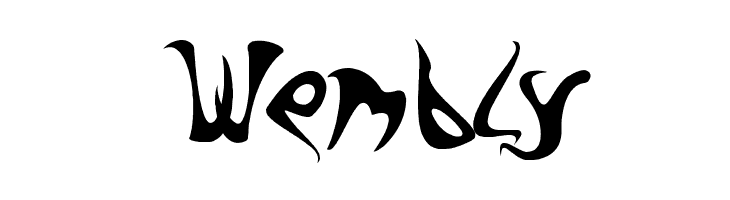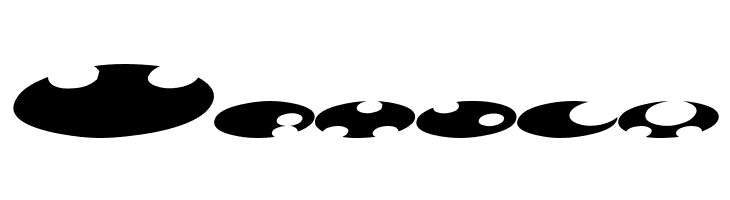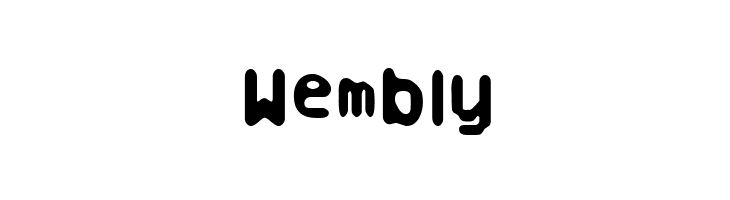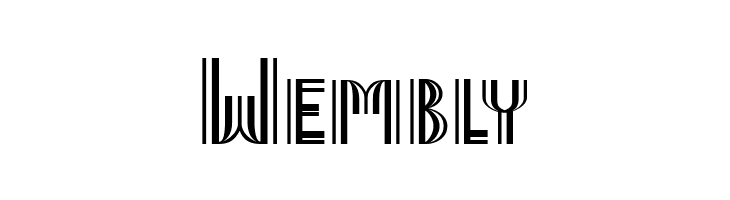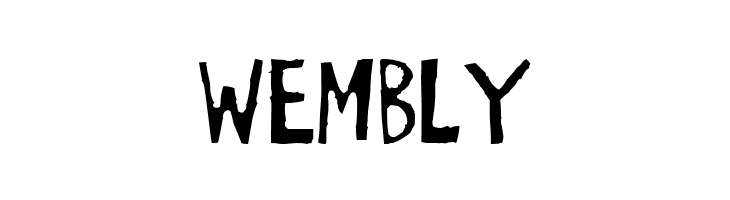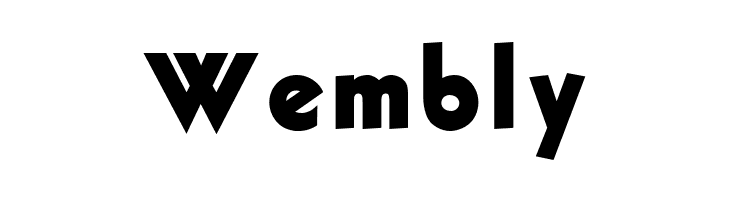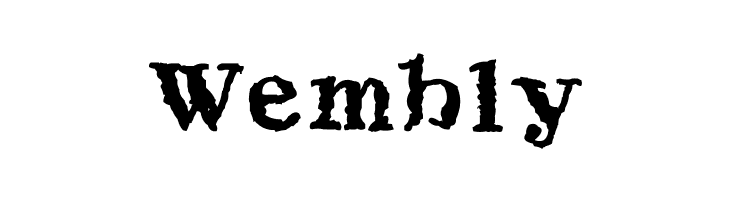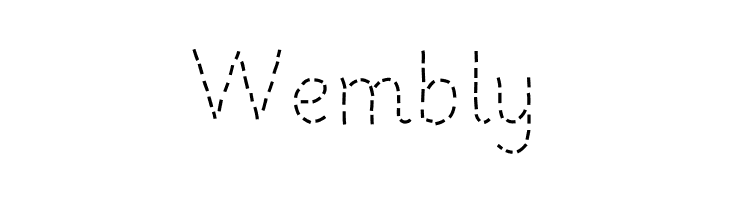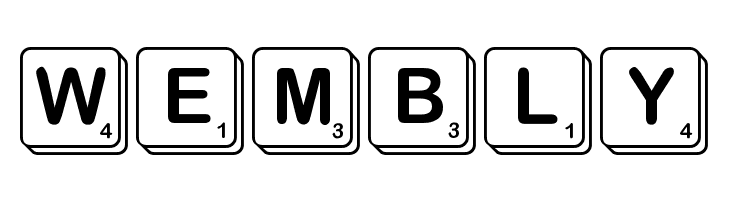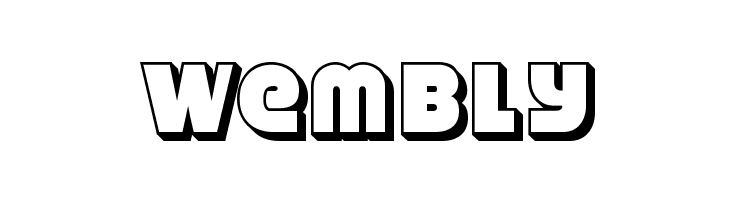
A geometric, Art Deco-inspired font with a strong vertical emphasis.
A bold, hand-drawn font with a rustic and artistic style.
A bold, distressed font with a vintage, hand-crafted appearance.
A bold, playful, hand-drawn font with a friendly and energetic style.
A bold, futuristic font with rounded edges and a geometric structure.
A classic serif font with bold, elegant curves and pronounced serifs.
A bold, geometric font with sharp angles and clean lines.
A bold, modern sans-serif font with geometric influences and excellent readability.
A bold, angular font with a graffiti-inspired style and high contrast.
A quirky, hand-drawn font with irregular, jagged edges and playful character design.
A bold, dripping font with a horror-themed aesthetic, perfect for spooky designs.
A decorative font featuring silhouette figures in various poses.